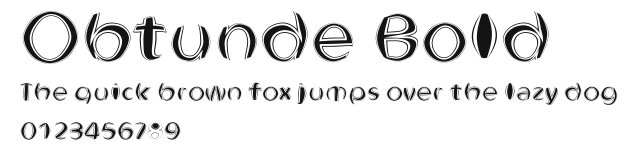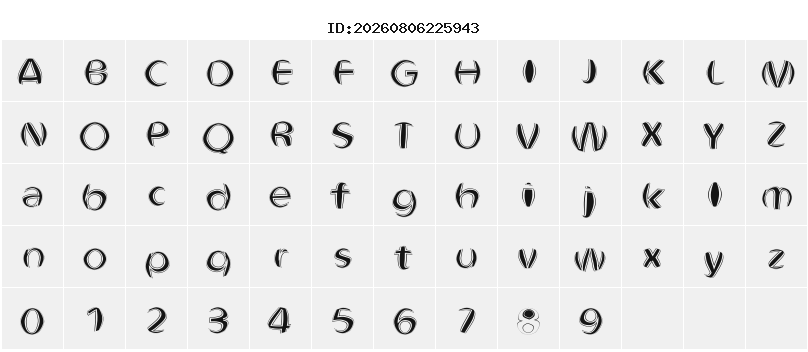
• Font Name: Obtunde Bold
• Full Font Name: Obtunde Bold
About Obtunde Bold.ttf
Obtunde Bold.ttf is a modern, elegant sans-serif font designed for ultimate readability and visual harmony. Perfect for branding, headlines, web design, and print materials.